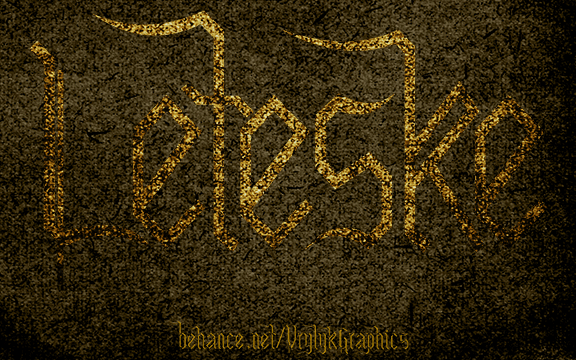
Preview and download Leteske Font. Created by Clayton Carkner in Gothic Modern styles with 100% Free license.
Leteske is a blackletter-inspired mono-width display font. Use it however you like. Commercial use is fine. If you find anything wrong with Leteske, let me know via vrylyk@gmail.com. Leteske was also partially developed to be a typesetting font. I recommend you use it at 20pts for paragraphs, give or take. |